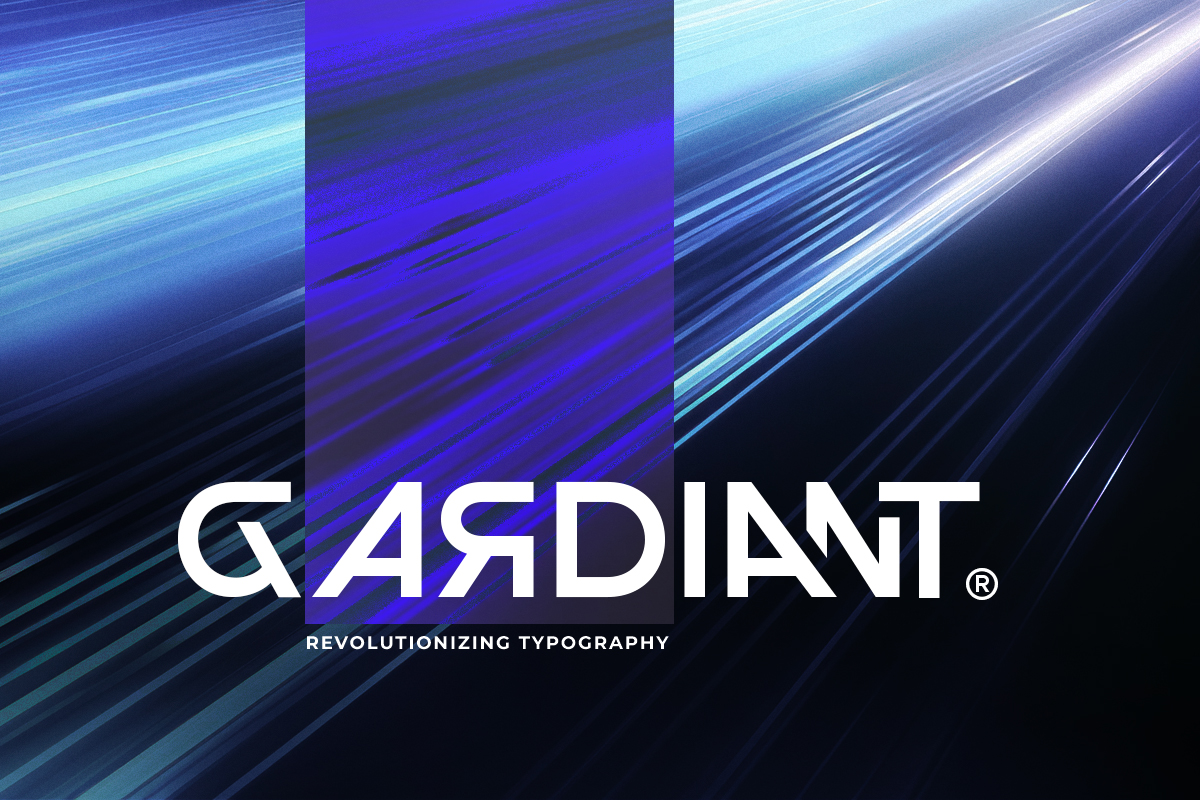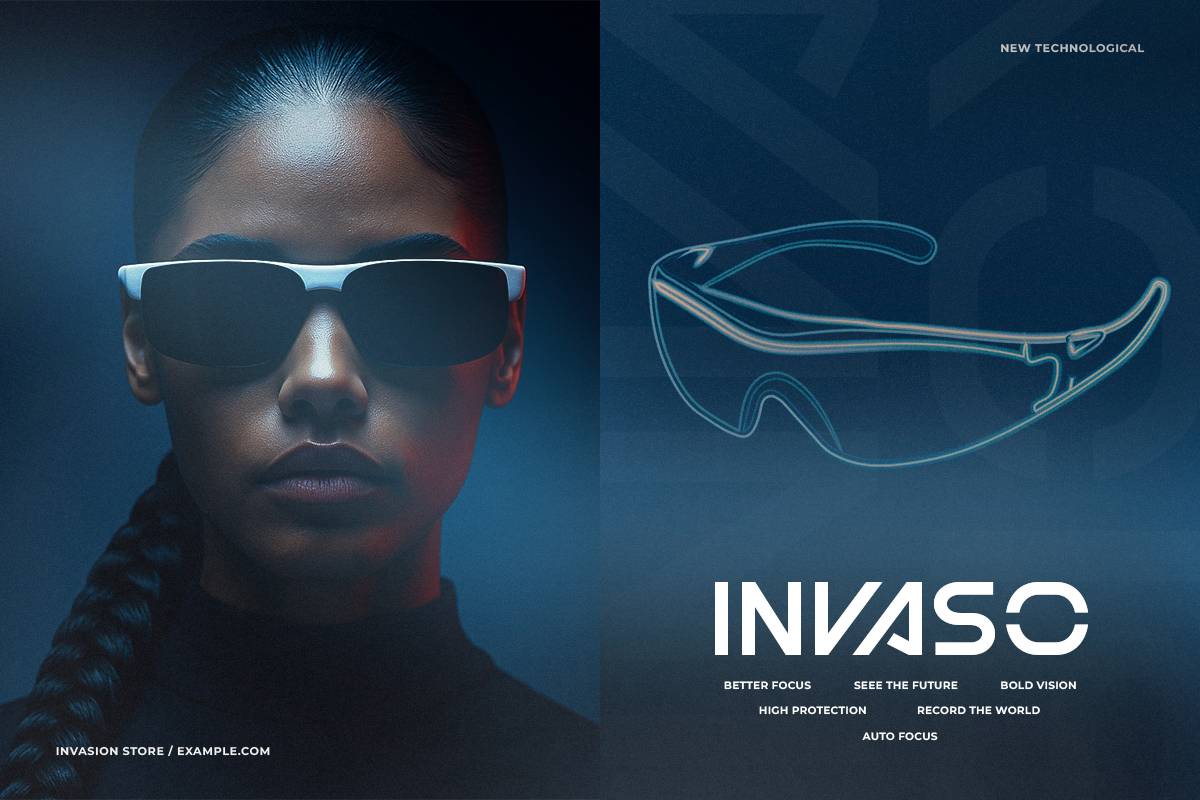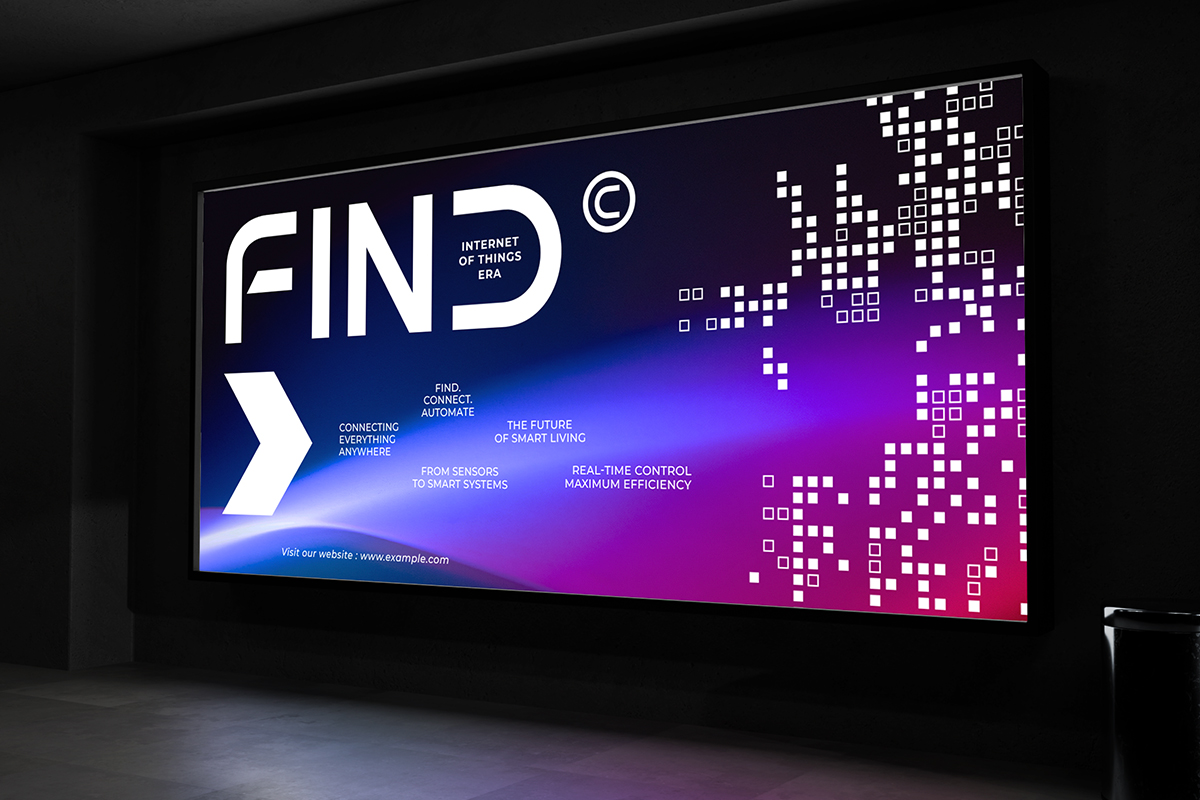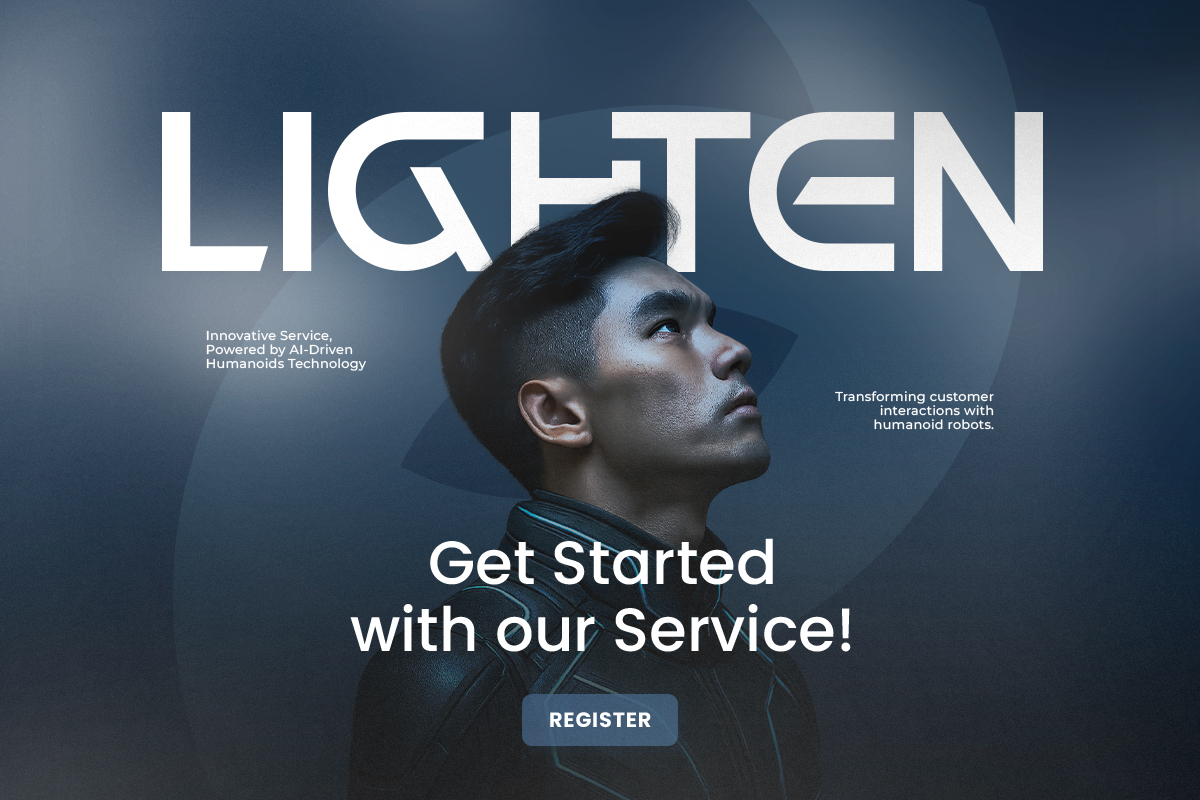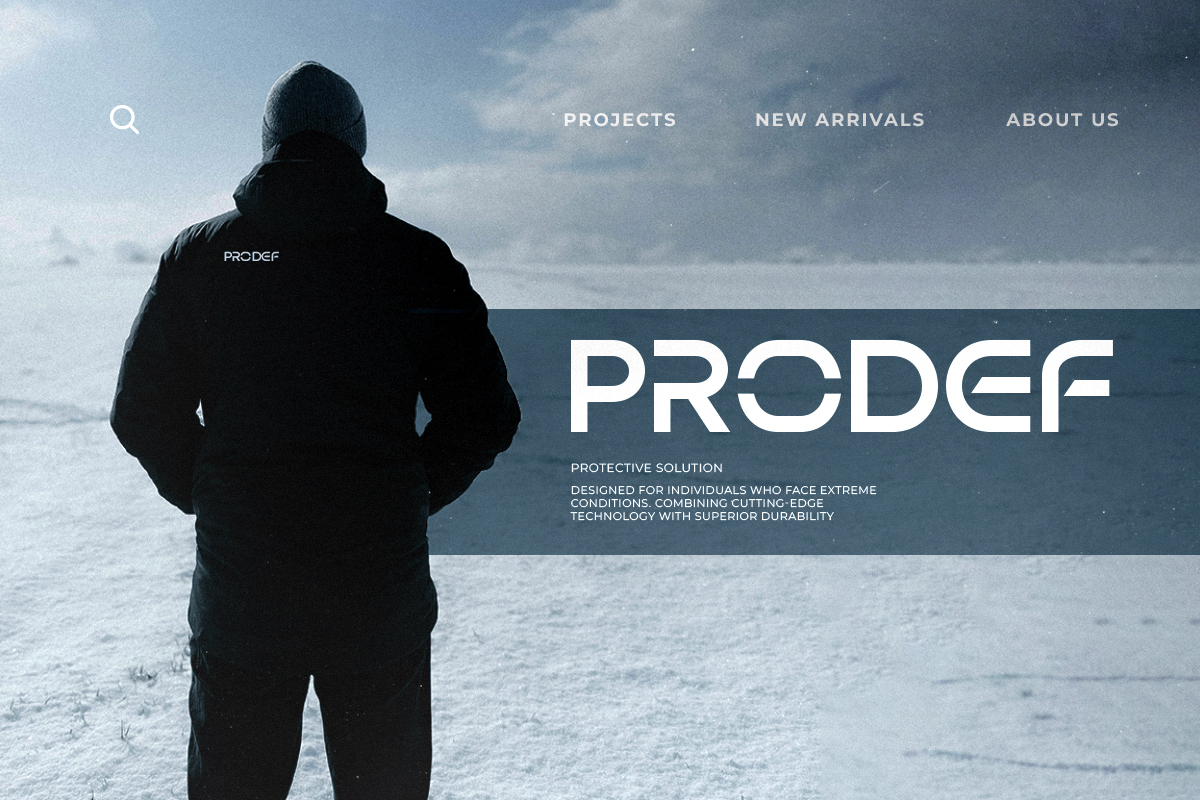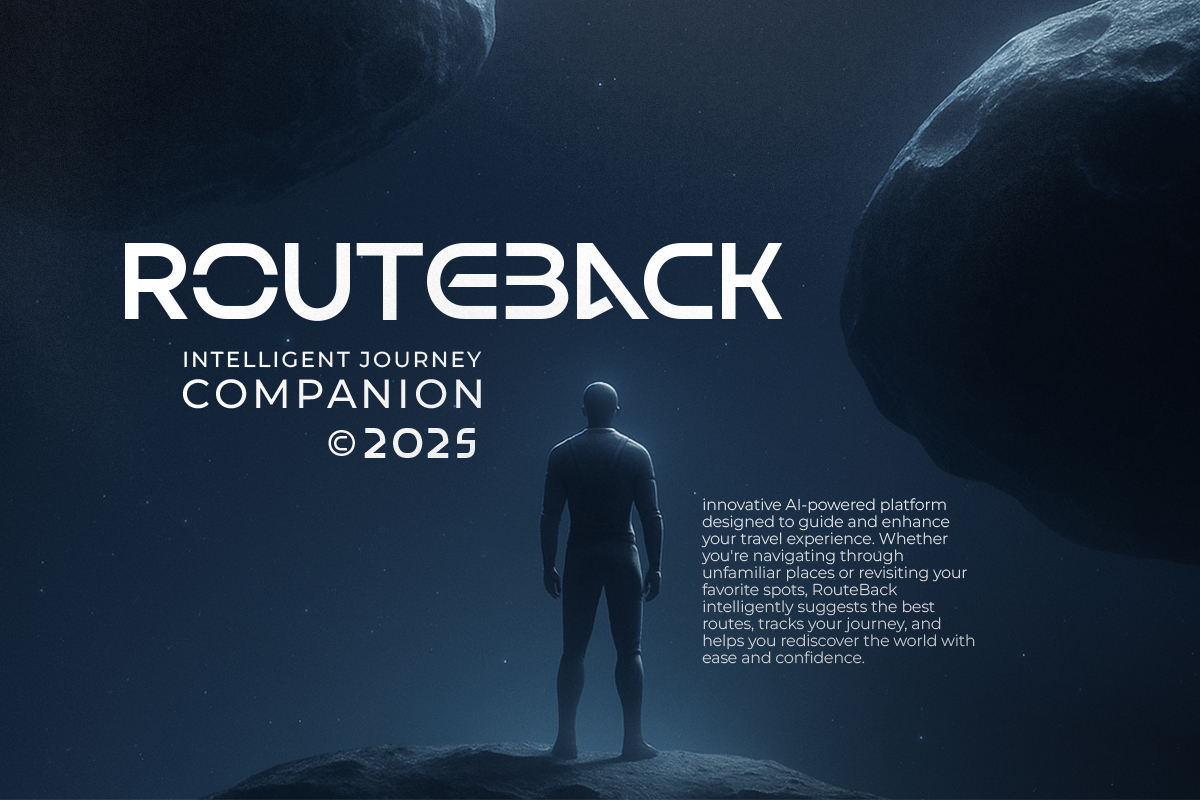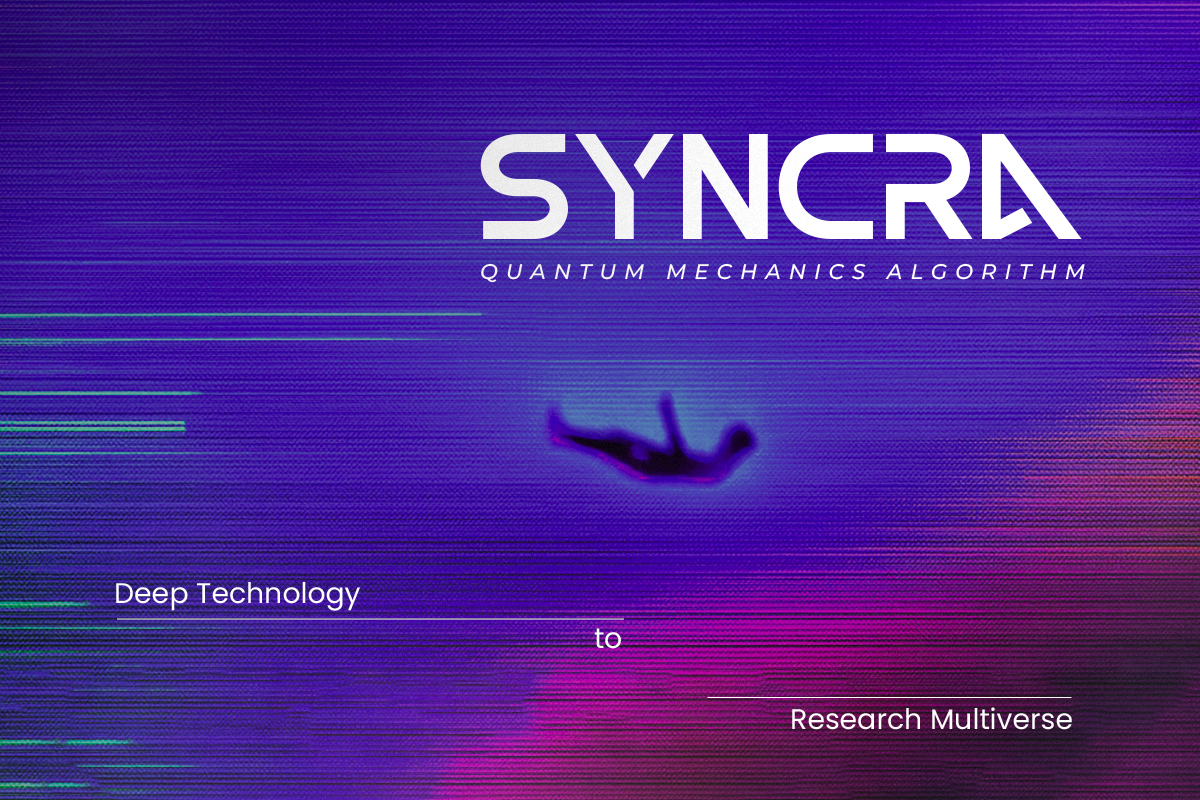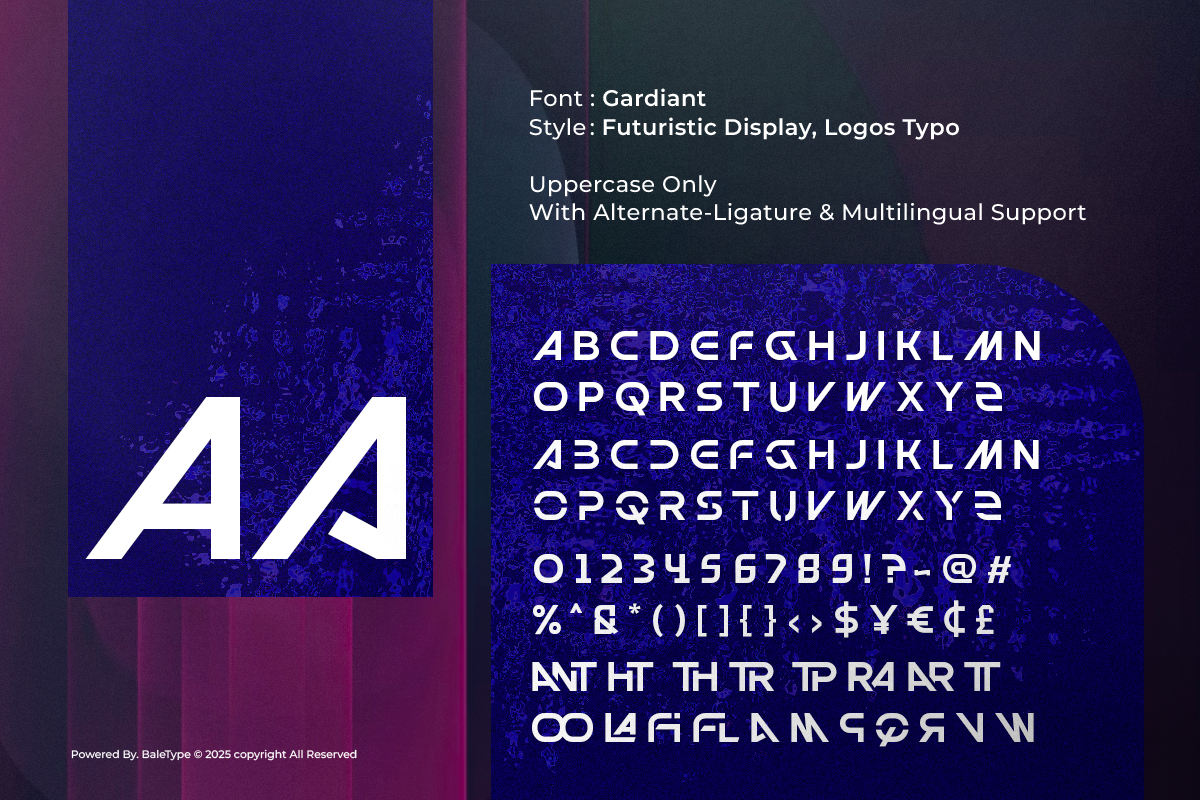
Gardiant - Futuristic Logo Font
Gardiant is a futuristic and modern logo font with sci-fi looks based on sans serif font. You can use this font for many purpose such as game, logotype, tech startup logo, football team, or any project that needs a unique and stunning sans. With stylish lowercase, you can combine with the uppercase to make your logo more standout. You can use alternates and ligatures to make your project even more eye-catching. This font also support multi language.
Gardiant – Futuristic Logo Font
Gardiant is a futuristic and modern logo font with sci-fi looks based on sans serif font.